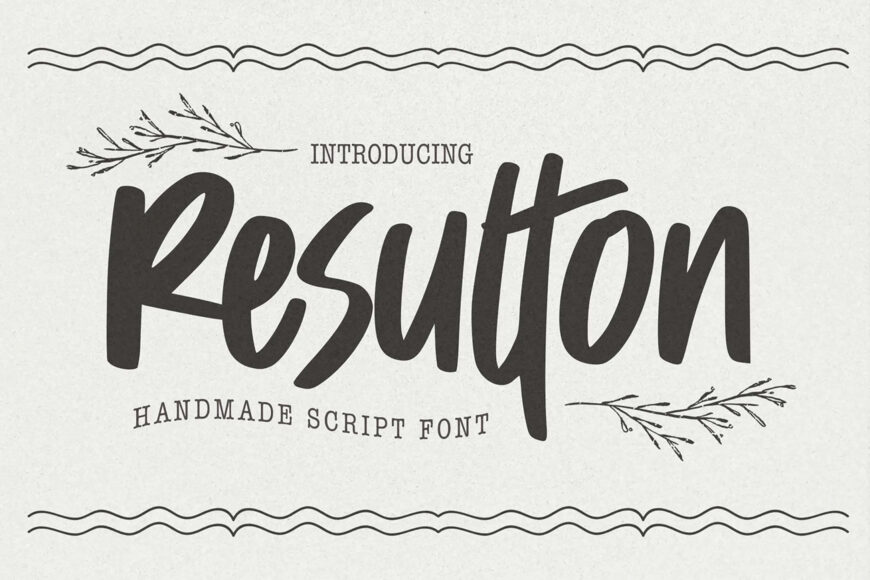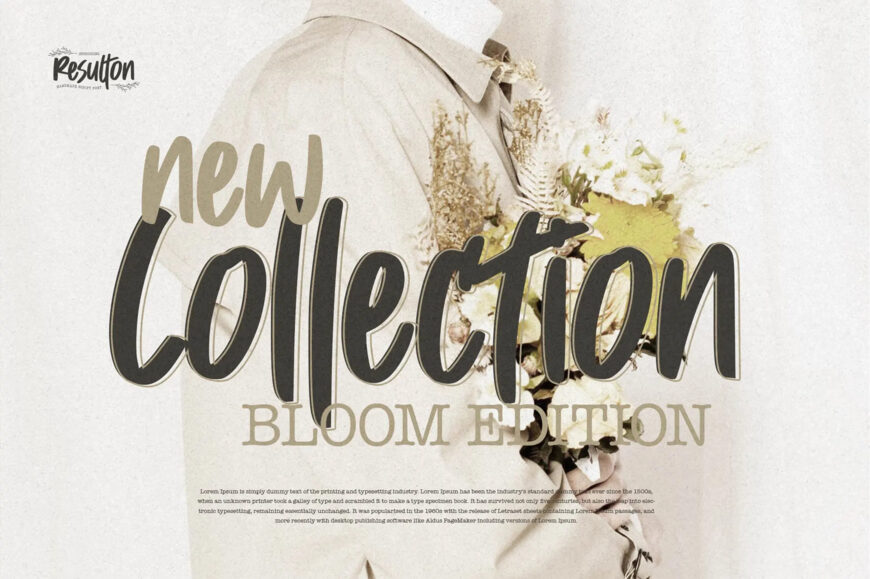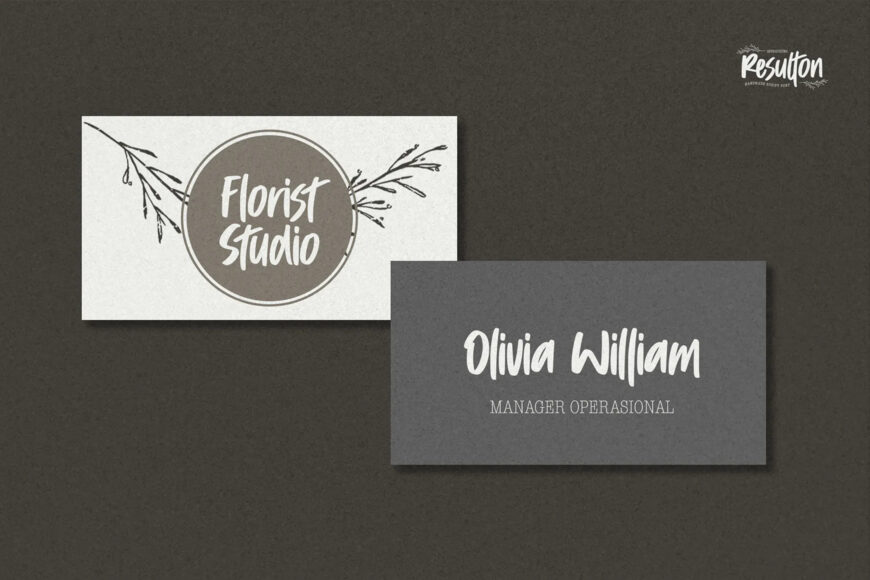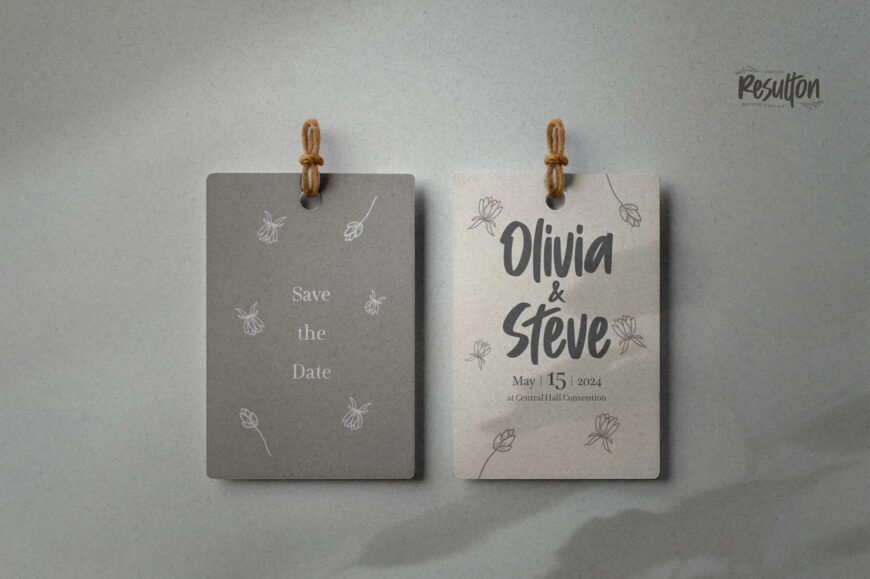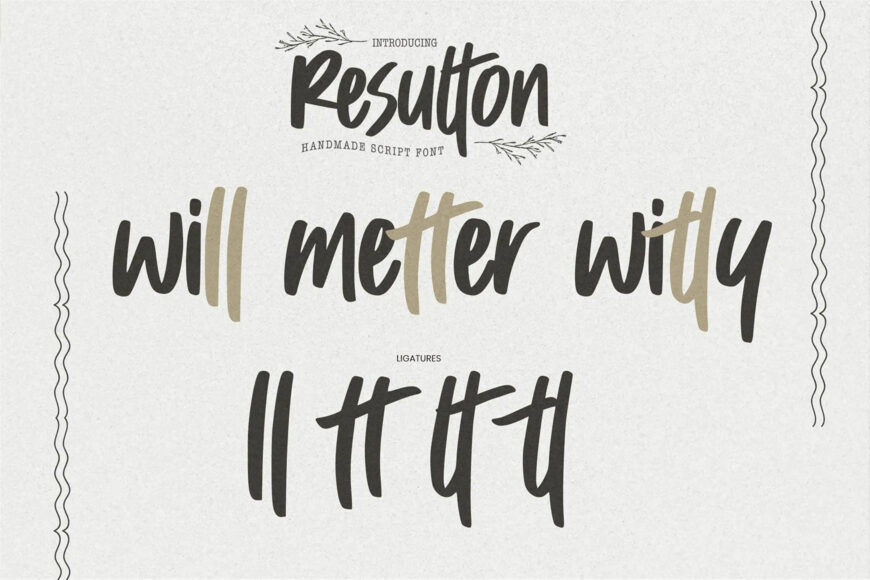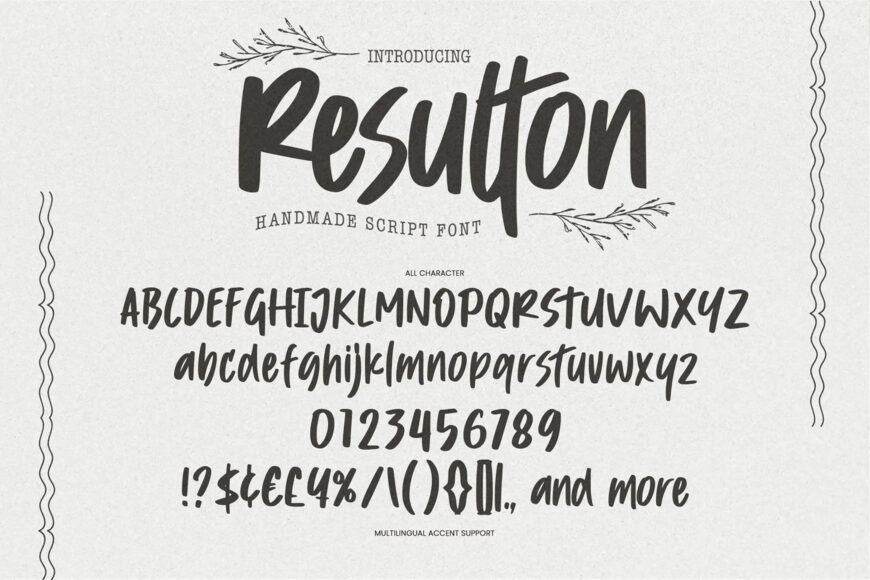
Resulton Font
Resulton is a charming handmade script font that blends natural elegance with a touch of drama. Authentic and relaxed, its clear style brings an effortless, classy look to any design. It is perfect for logos, branding, wedding invitations, product packaging, and stationery, as well as headers, posters, advertisements, photo watermarks, and special event designs.